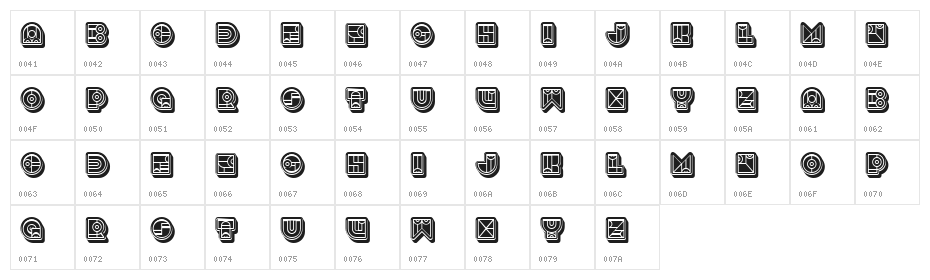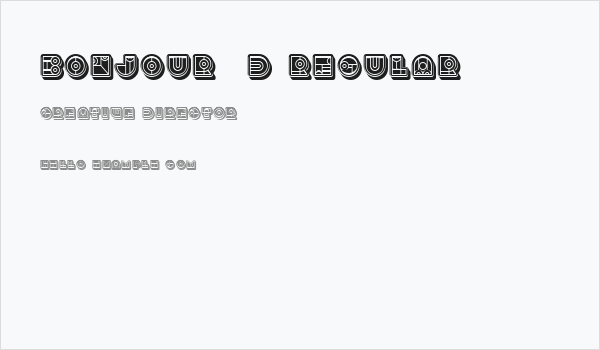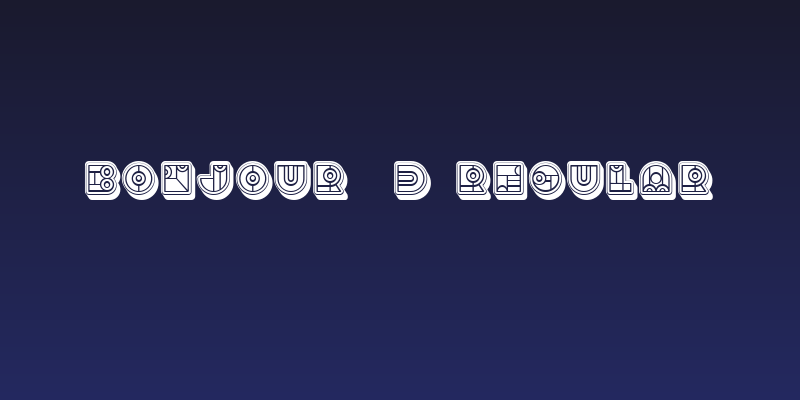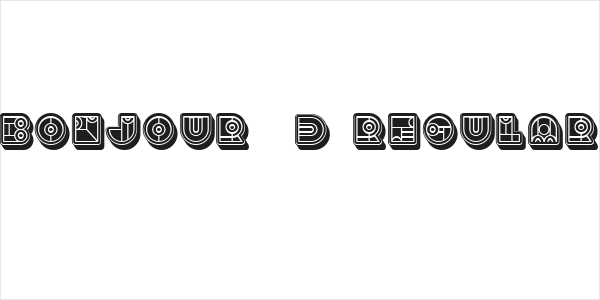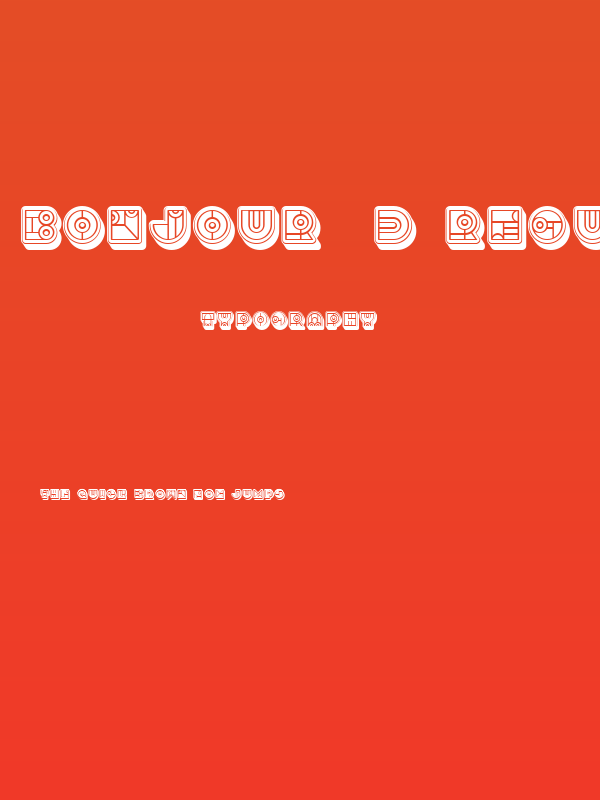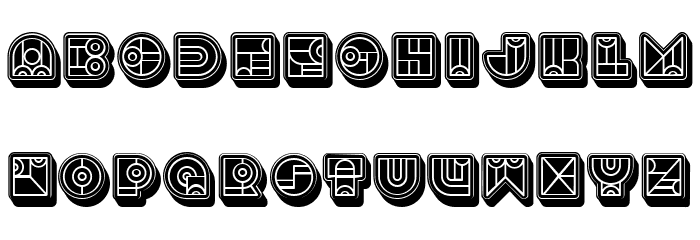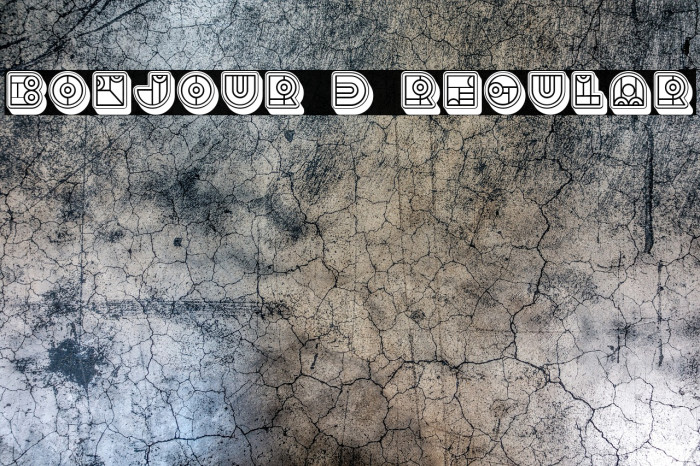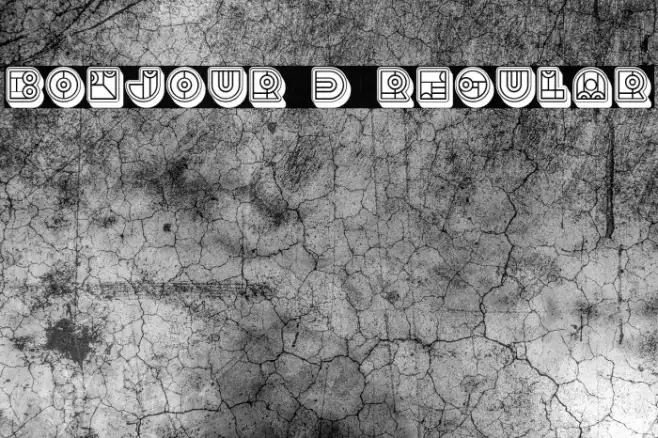
Bonjour 3D Regular Font
✎ Art Deco
Bonjour 3D Regular Description
This font features a bold, geometric design with a three-dimensional effect. Each character is enclosed within a solid outline, creating a striking visual impact. The letters are constructed with a combination of straight lines and curves, forming intricate patterns within each character. The style is reminiscent of Art Deco, with a modern twist that adds depth and dimension. The font's unique structure makes it highly decorative, suitable for eye-catching designs. Its boldness and complexity suggest a strong presence, ideal for projects that require a standout typeface.
| Overall Style | Modern, Decorative |
| Proposed Projects | Ideal for posters, logos, branding, and any design requiring a bold, decorative typeface. |